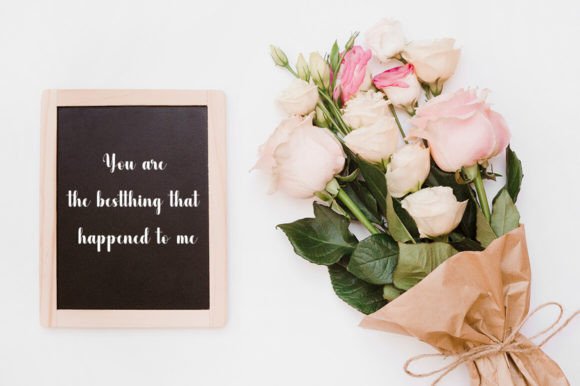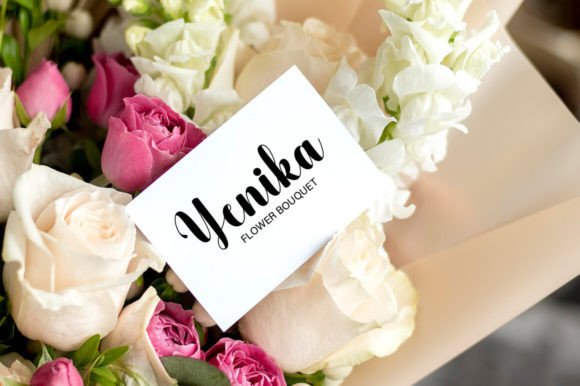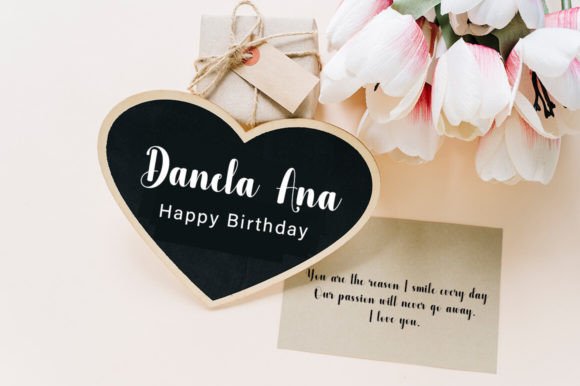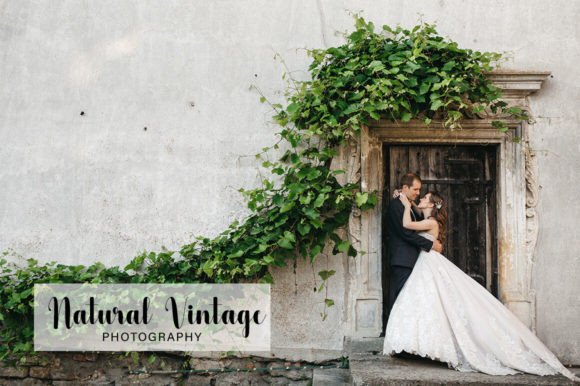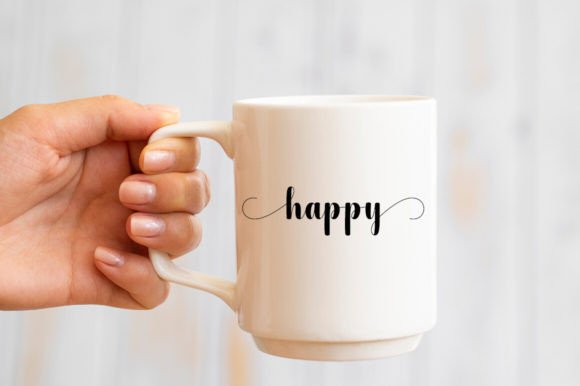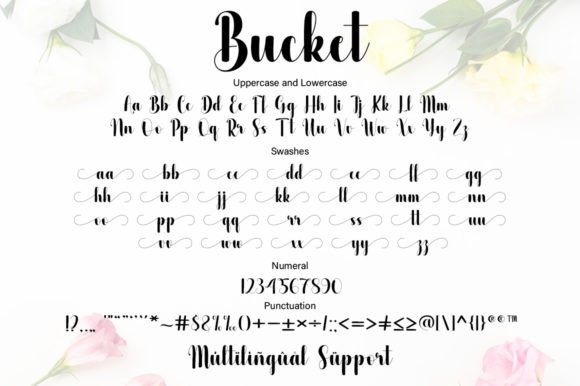
Introducing Bucket Font: The Romantic and Sweet Calligraphy Typeface
Are you a designer or crafter looking for a unique and elegant font to add a touch of personality to your projects? Look no further than Bucket Font, a romantic and sweet calligraphy typeface that is sure to capture your heart. With its casual yet sophisticated touch, Bucket Font is perfect for a variety of applications, from logos and wedding invitations to headings, t-shirts, and more.
What Makes Bucket Font Special?
Bucket Font is a one-of-a-kind calligraphy typeface that boasts characters that dance along the baseline, giving it a playful and whimsical feel. Its elegant touch makes it suitable for a range of projects, from formal events like weddings and galas to more casual applications like t-shirts and posters. The font’s versatility is one of its standout features, making it a valuable addition to any designer’s or crafter’s toolkit.
Uses for Bucket Font
Bucket Font’s versatility is one of its greatest strengths, and it can be used for a wide range of projects, including:
- Logos: Create a unique and memorable logo for your business or brand with Bucket Font’s elegant and sophisticated touch.
- Wedding Invitations: Make your wedding invitations truly special with Bucket Font’s romantic and whimsical feel.
- Headings: Add a touch of personality to your headings and titles with Bucket Font’s playful and elegant characters.
- T-Shirts: Create custom t-shirts with Bucket Font’s casual and stylish touch.
- Letterhead: Elevate your business correspondence with Bucket Font’s sophisticated and elegant feel.
- Signage: Make your signage stand out with Bucket Font’s playful and eye-catching characters.
- Labels: Add a touch of personality to your labels and packaging with Bucket Font’s whimsical and elegant touch.
- News: Use Bucket Font to add a touch of sophistication and elegance to your news articles and publications.
- Posters: Create eye-catching posters with Bucket Font’s playful and attention-grabbing characters.
- Badges: Design custom badges with Bucket Font’s elegant and sophisticated touch.
Why Choose Bucket Font?
With so many fonts available, why choose Bucket Font? Here are just a few reasons why designers and crafters love this romantic and sweet calligraphy typeface:
- Unique and Memorable: Bucket Font’s playful and elegant characters make it a standout from more traditional fonts.
- Versatile: Bucket Font can be used for a wide range of projects, from formal events to casual applications.
- Elegant and Sophisticated: Bucket Font’s elegant touch makes it perfect for projects that require a touch of sophistication and refinement.
- Easy to Read: Despite its playful and whimsical feel, Bucket Font is easy to read and understand, making it perfect for body text and headings.
Tips for Using Bucket Font
To get the most out of Bucket Font, here are a few tips to keep in mind:
- Use it Sparingly: Bucket Font’s playful and elegant characters can be overwhelming if used too much. Use it sparingly to add a touch of personality to your projects.
- Pair it with Other Fonts: Bucket Font pairs well with other fonts, such as sans-serif fonts like Arial or Helvetica. Experiment with different pairings to find the perfect combination for your project.
- Adjust the Size and Color: Bucket Font’s size and color can greatly impact its effectiveness. Experiment with different sizes and colors to find the perfect combination for your project.
Bucket Font is a romantic and sweet calligraphy typeface that is sure to capture your heart. With its casual yet elegant touch, it’s perfect for a wide range of projects, from logos and wedding invitations to headings, t-shirts, and more. Whether you’re a designer or crafter, Bucket Font is a valuable addition to your toolkit. So why wait? Download Bucket Font today and start adding a touch of personality to your projects!